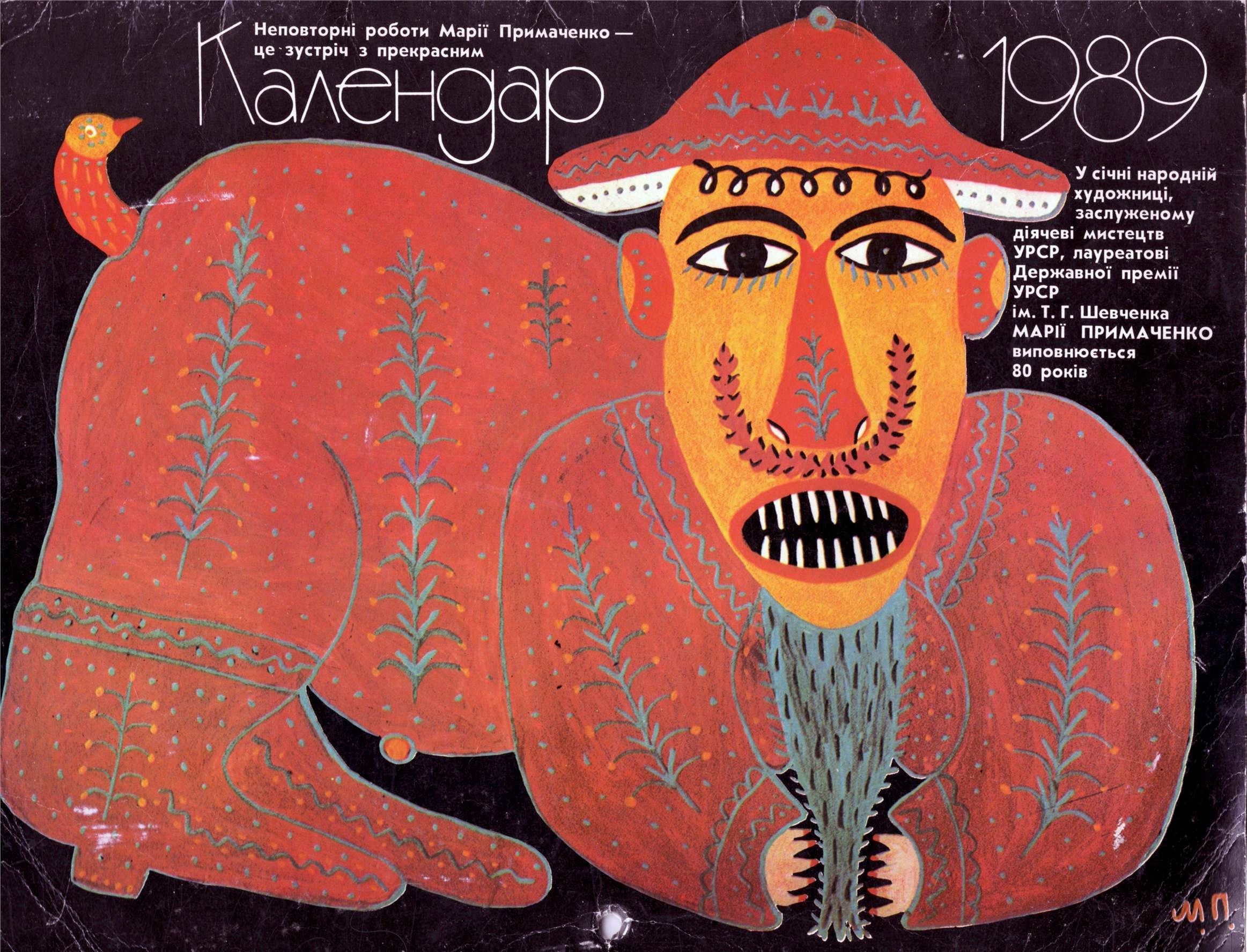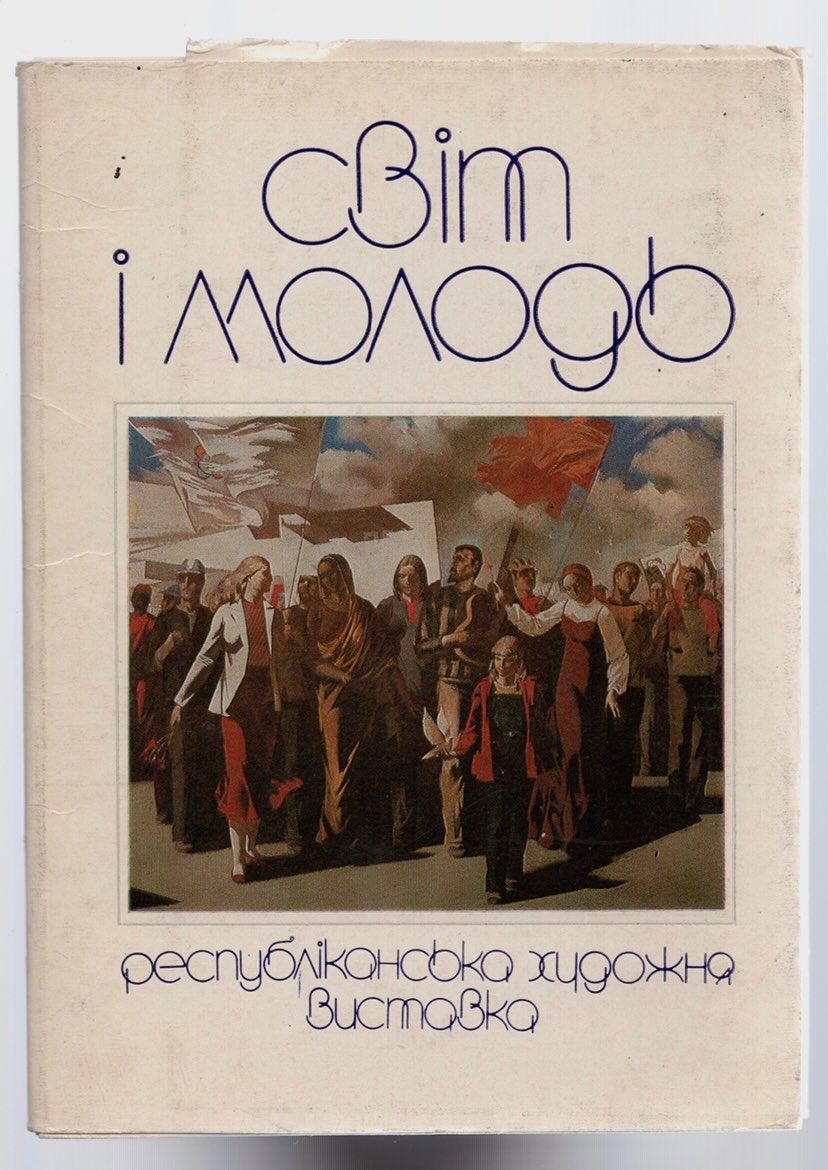
KTF Cirk is a free interpretation drawn after anonymous lettering found in an art exhibition catalog Світ і Молодь (World and Youth), most likely from 1985. Based on what was at hand, a private font was made to be used in the LP cover design for Alex Chumak (our friend and co-author of KTF Olivier) band Sojuz. A simple geometric idea of crossing circles and lines and a free choice of Cyrillic letterforms (mixing upper and lowercase) for a unicase solution was an instant pleasure to work on. After its first successful use, we decided to expand it into a full release. At the end of its production, with all the drawings set, we stumbled upon its source called “Cirkulus”. It was made by Austrian designer Michael Neugebauer in 1970 for Letraset (LG118, 72pt 15.2 mm), and was used for Aretha Franklin’s 7-inch single on Atlantic Records. A Letraset catalog reveals a few similar fonts being in fashion between 1969–71: Horatio (Harry) Light, Fino, Premier Lightline, Linear, and a classic Avant Garde Gothic, a genre-defining face for layouts competing in using the thinnest possible lines. By closer examination of the mentioned cover, we spotted figures that didn’t match the original Neugebauer’s design. Most likely, a designer was searching for a more suitable substitution: Premier Lightline by Colin Brignall (1970).* When drawing our numbers, we relied on another finding — right in time! — a 1989 calendar with Maria Prymachenko paintings using a curious Cyrillic version of before mentioned Premier Lightline. You can call it a remix. The font was expanded, kerned, and engineered by our new member Vadym Axeev. An animated illustration is based on Saul Steinerg’s drawing dated 1949. Motion by Oleksandr Stelmakh.
*According to Fonts In Use, Premier Lightline “(...) was the first face issued in Letraset’s Letragraphica range”. Letragraphica was a series of display headline fonts released every 3-4 months.
- Calendar for 1989, published in Kyiv by the publishing house “Veselka.” The illustrations were created by the outstanding Ukrainian folk artist Maria Prymachenko. Dedicated to the 80th anniversary of the artist’s birth.
- The cover of a catalog or book, related to Ukrainian art of the Soviet period.